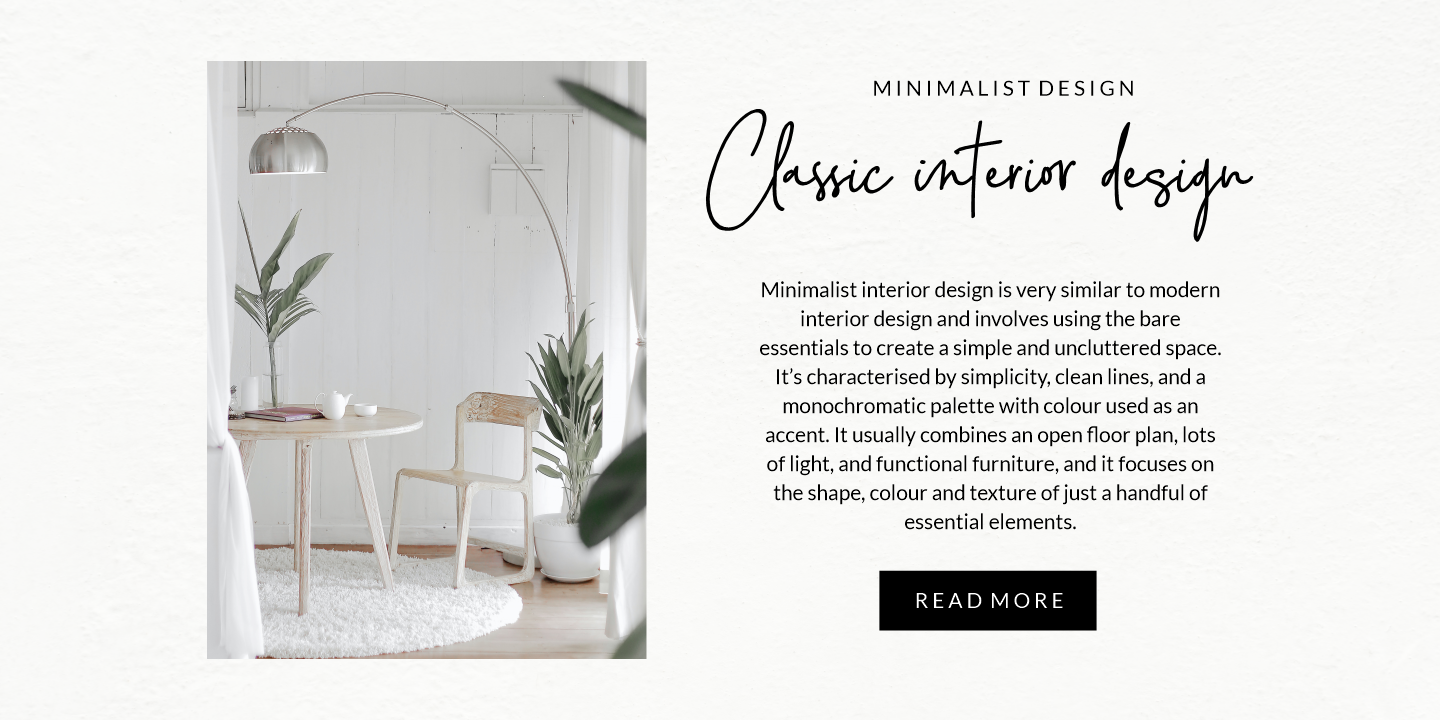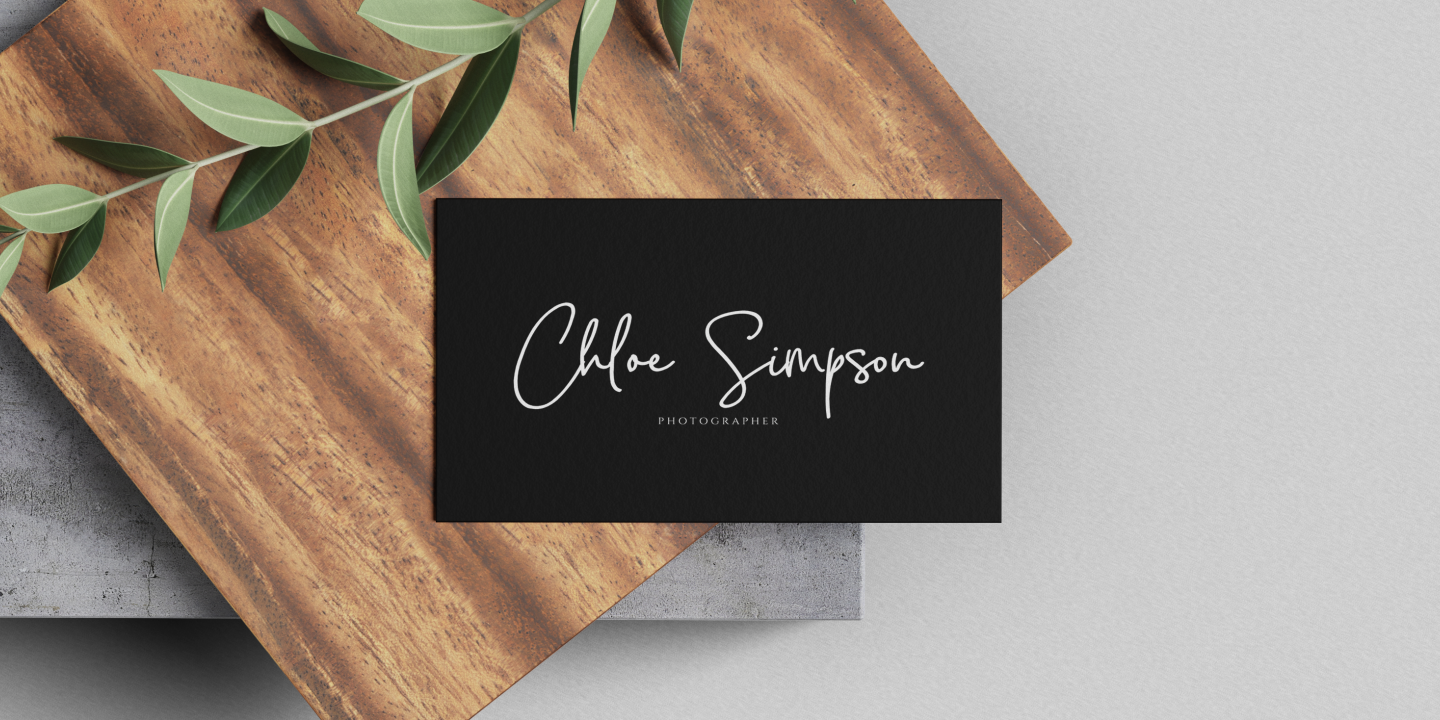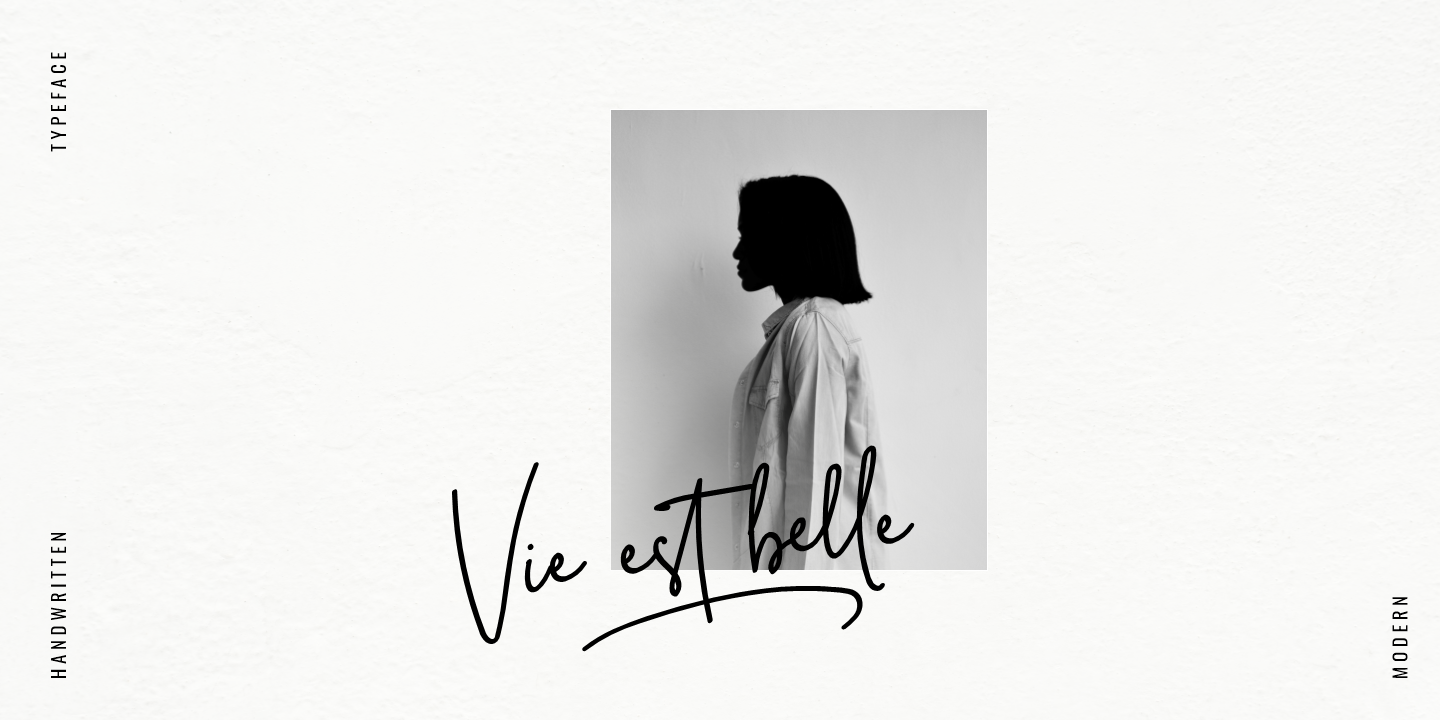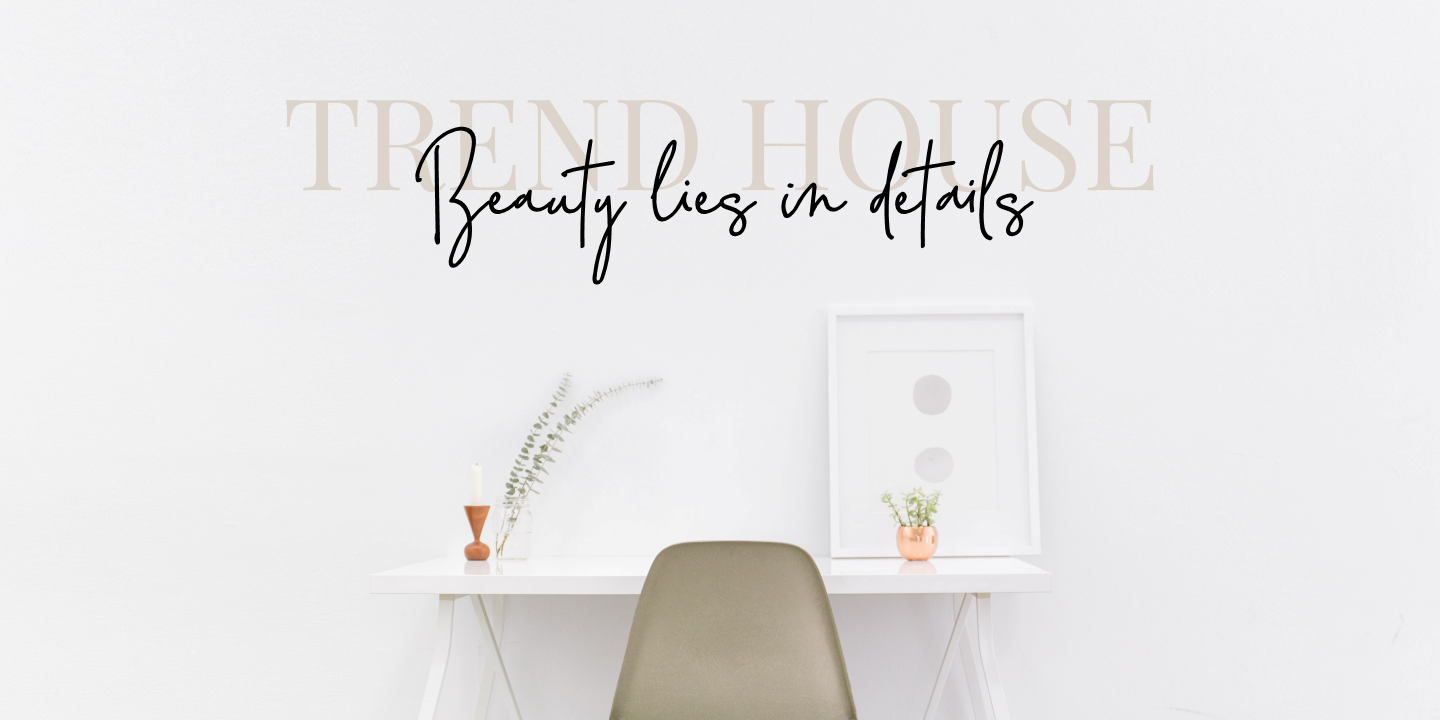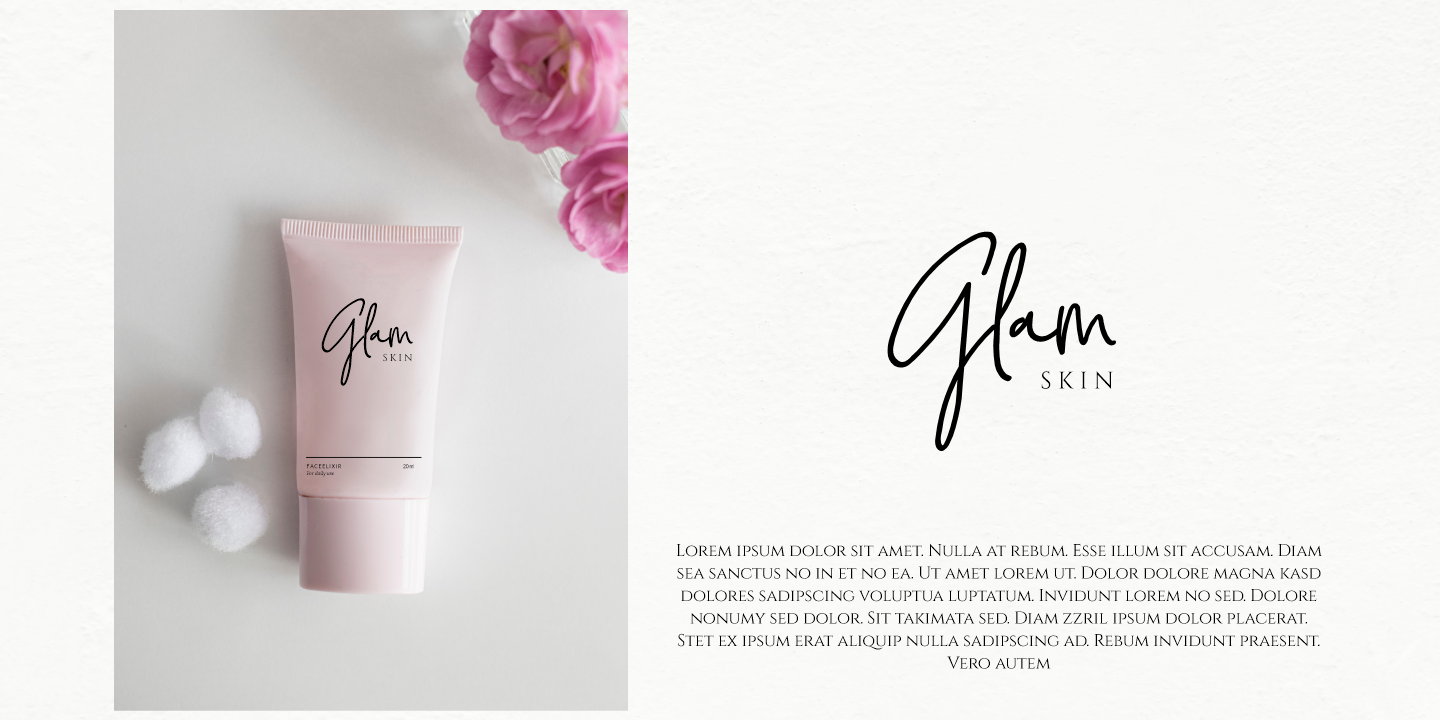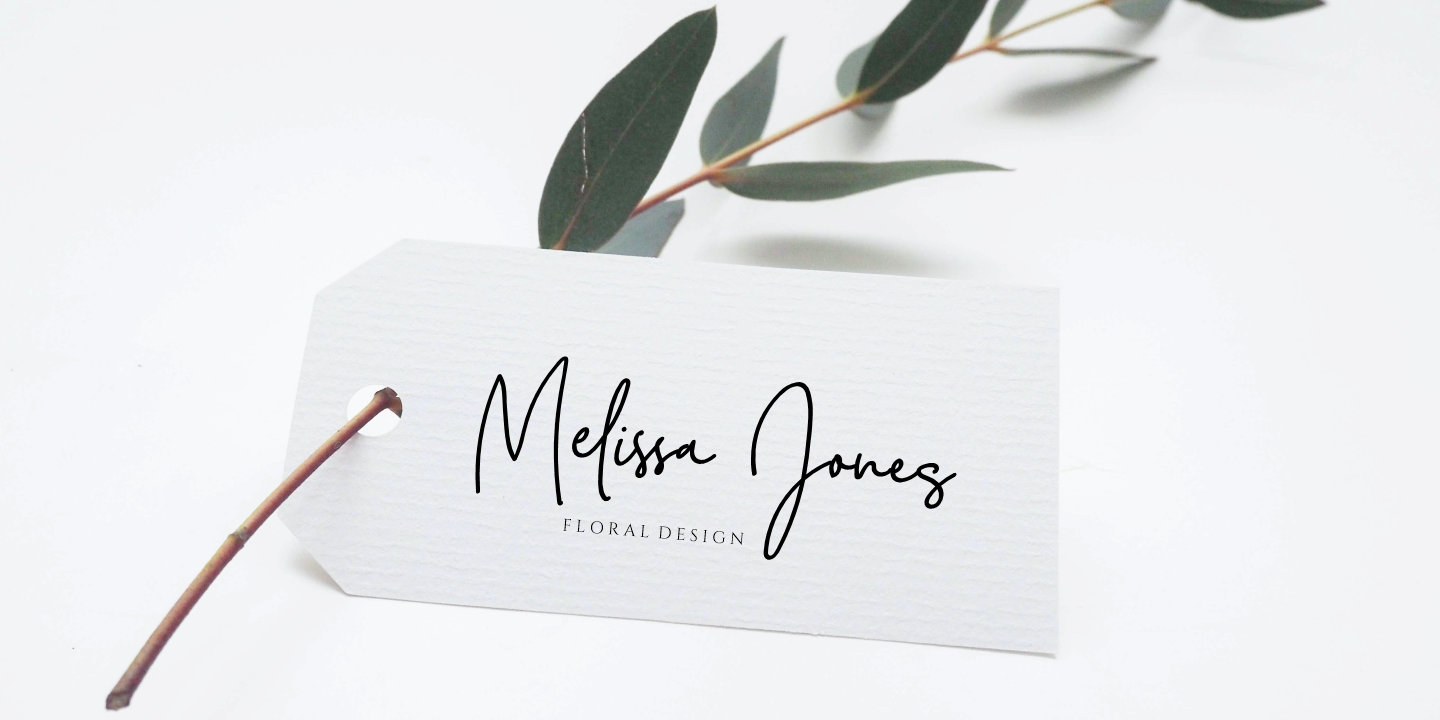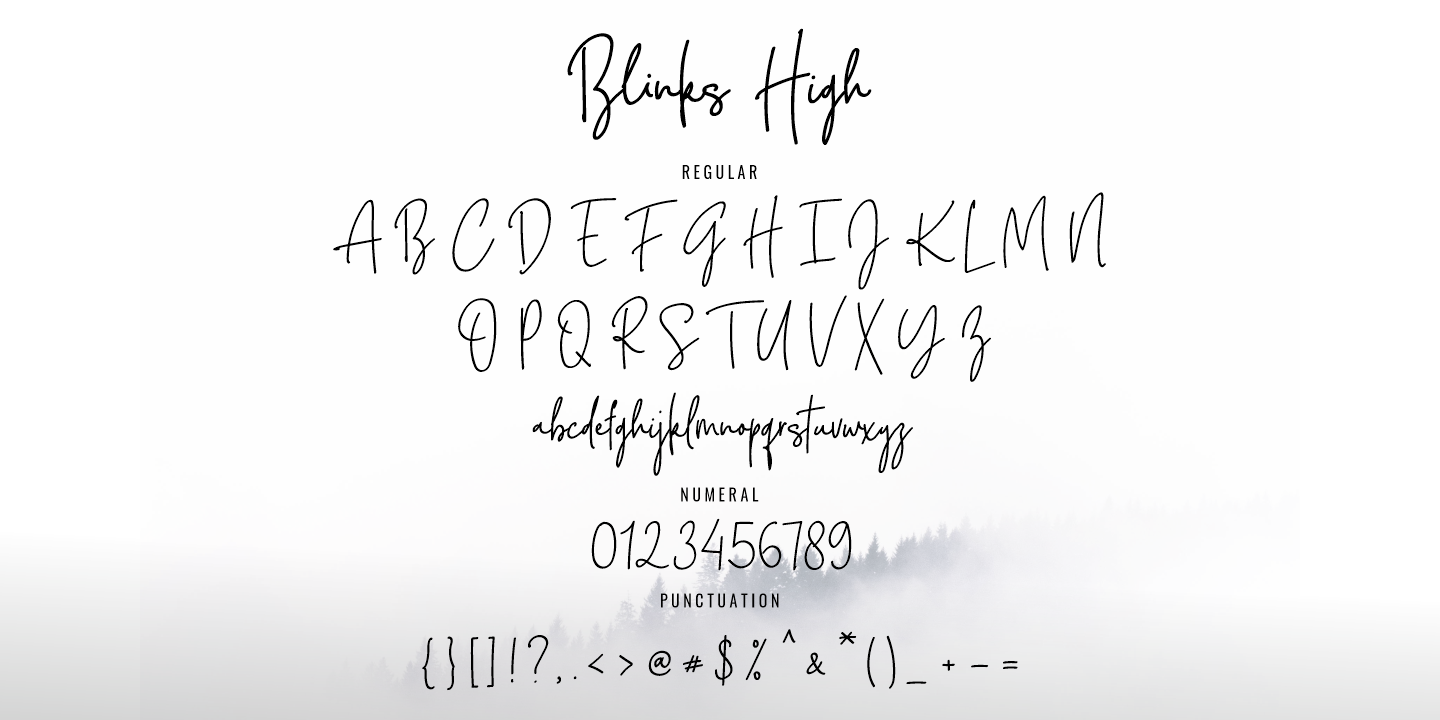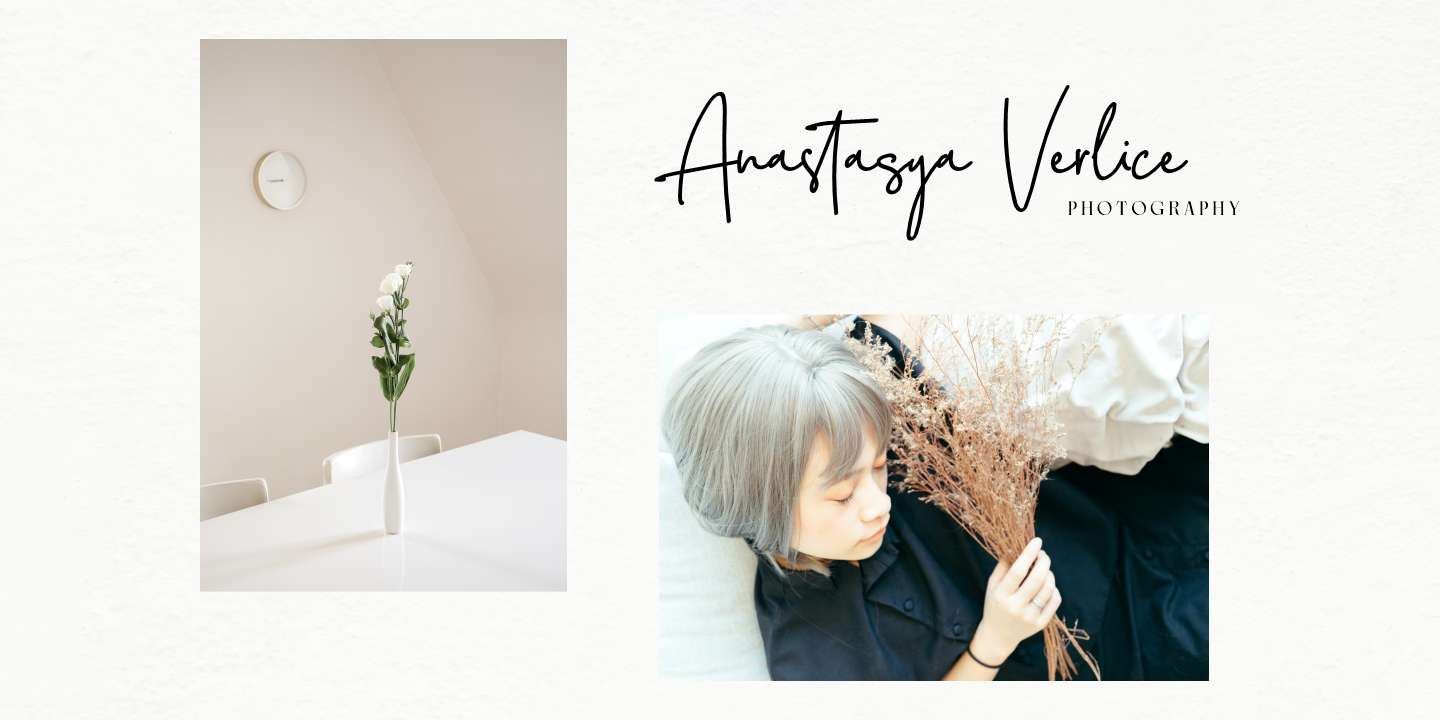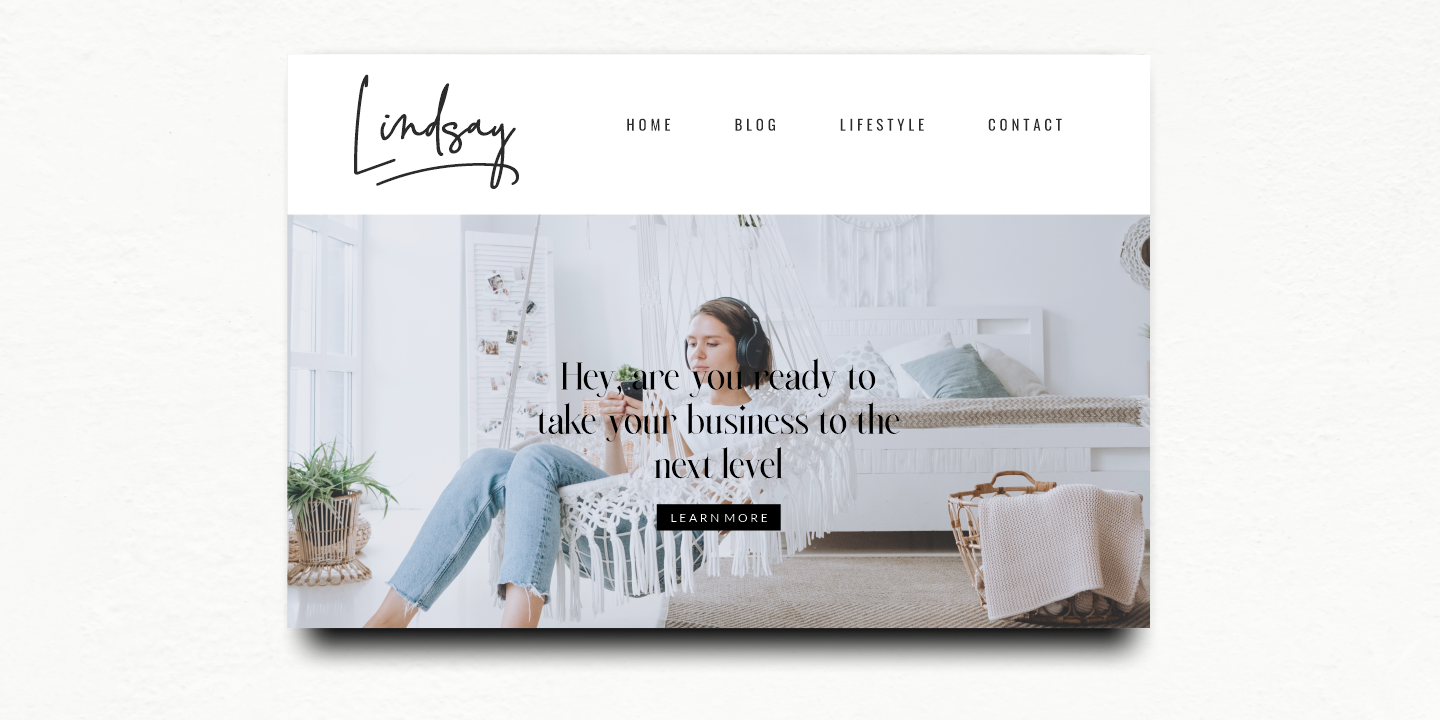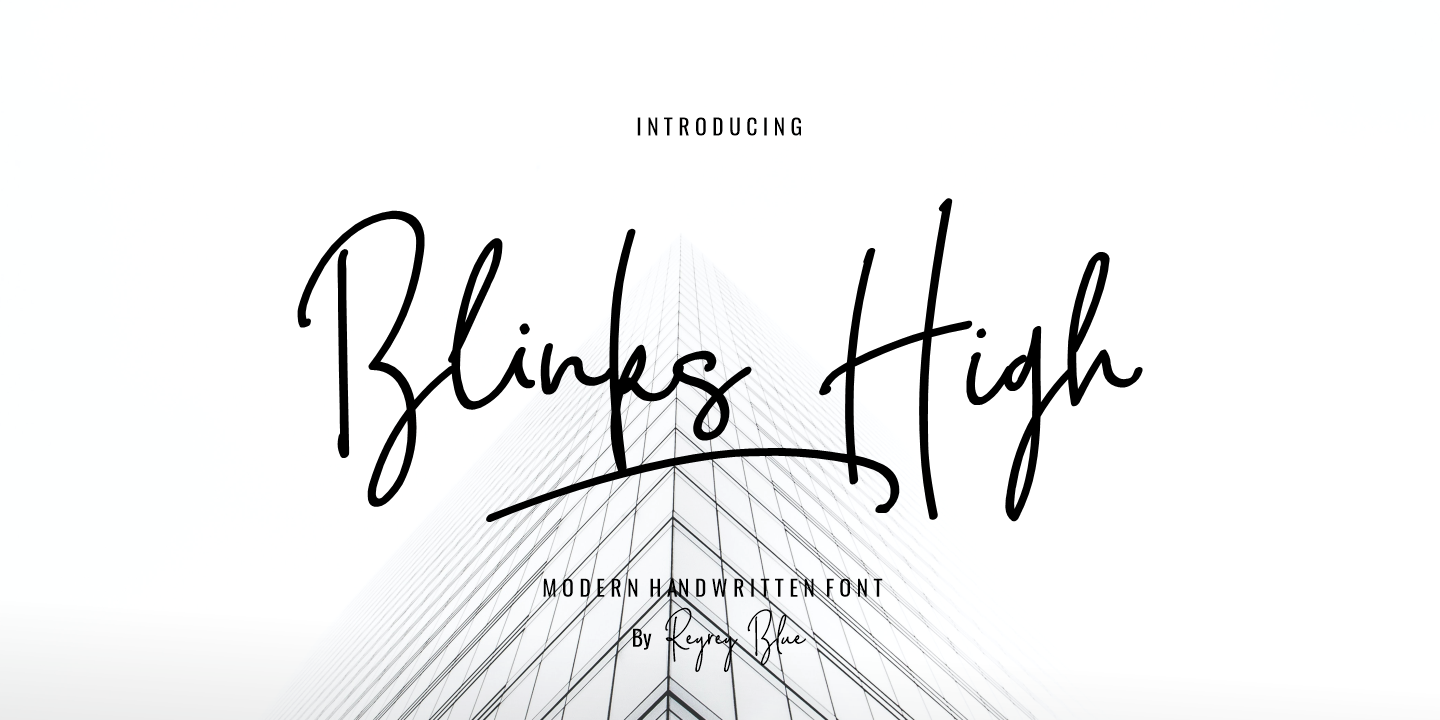
Blink High Signature Script is a beautiful handwriting font based on authentic hand writing with natural signature style.
Blink High Signature Script is perfect for branding projects, logo, wedding designs, social media posts, advertisements, product packaging, product designs, label, photography, watermark, invitation, stationery and any projects that need handwriting taste.
· All Uppercase and Lowercase
· Number & Symbol
· Supported Languages
· Alternates and Ligatures